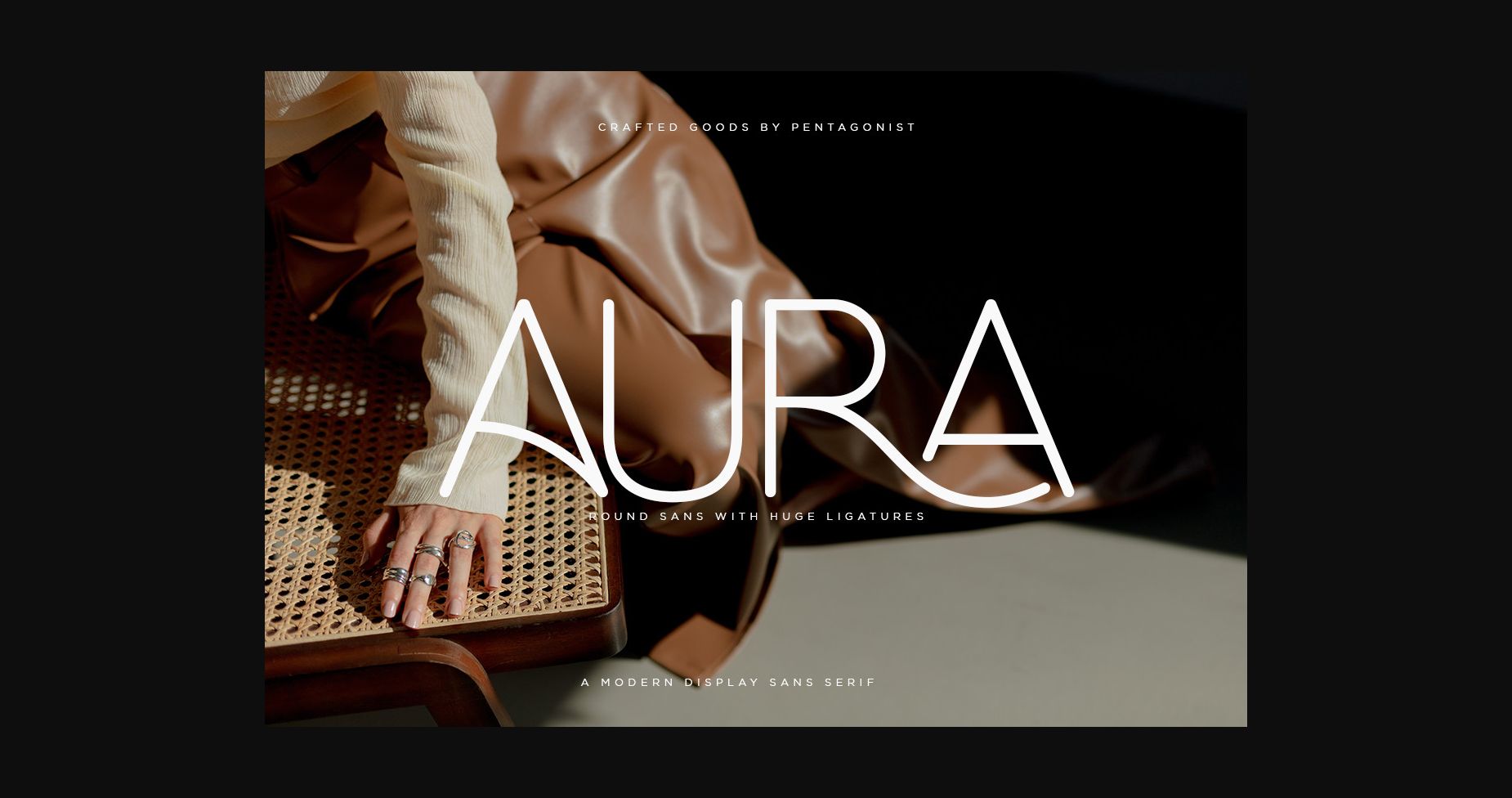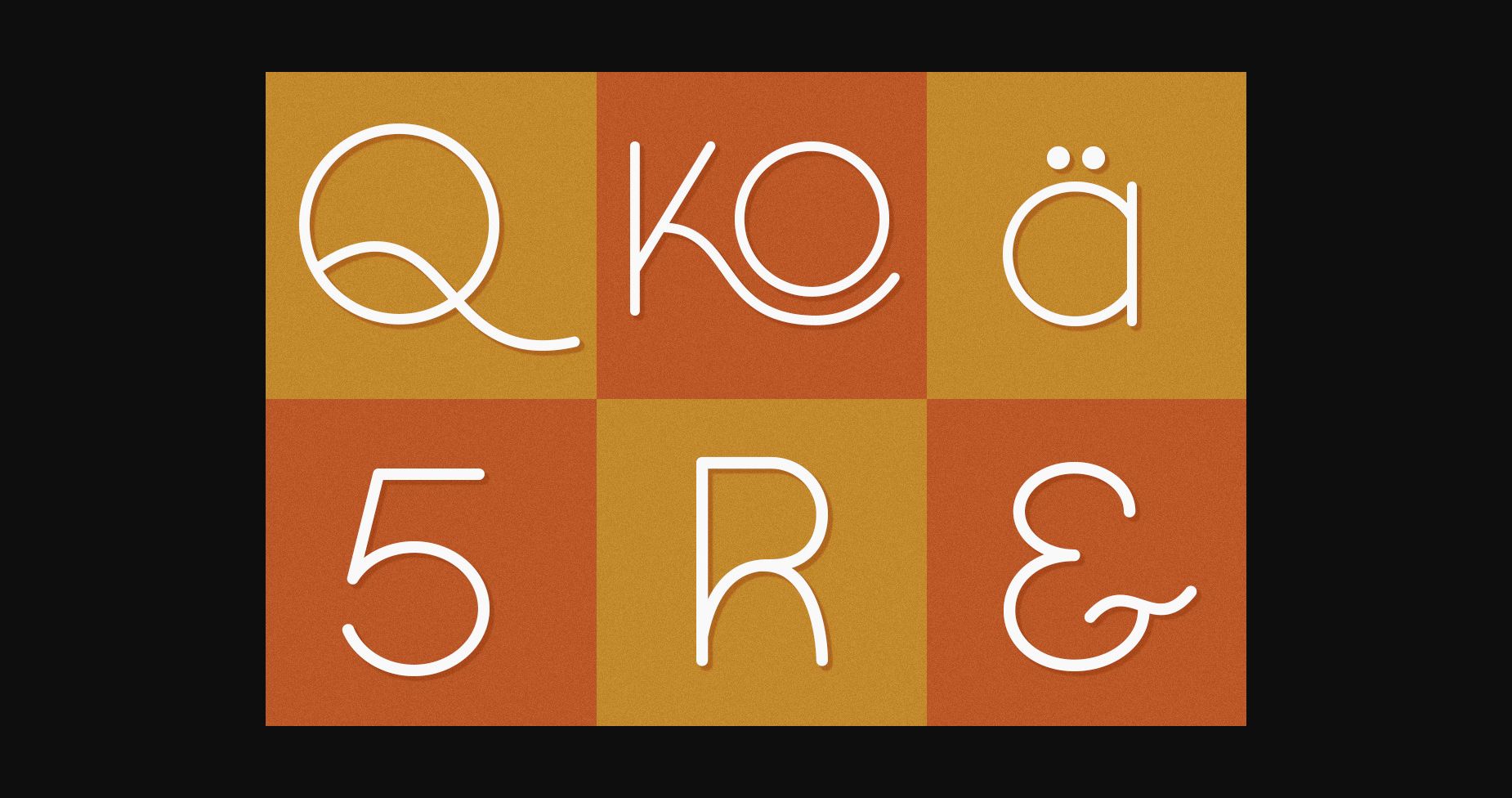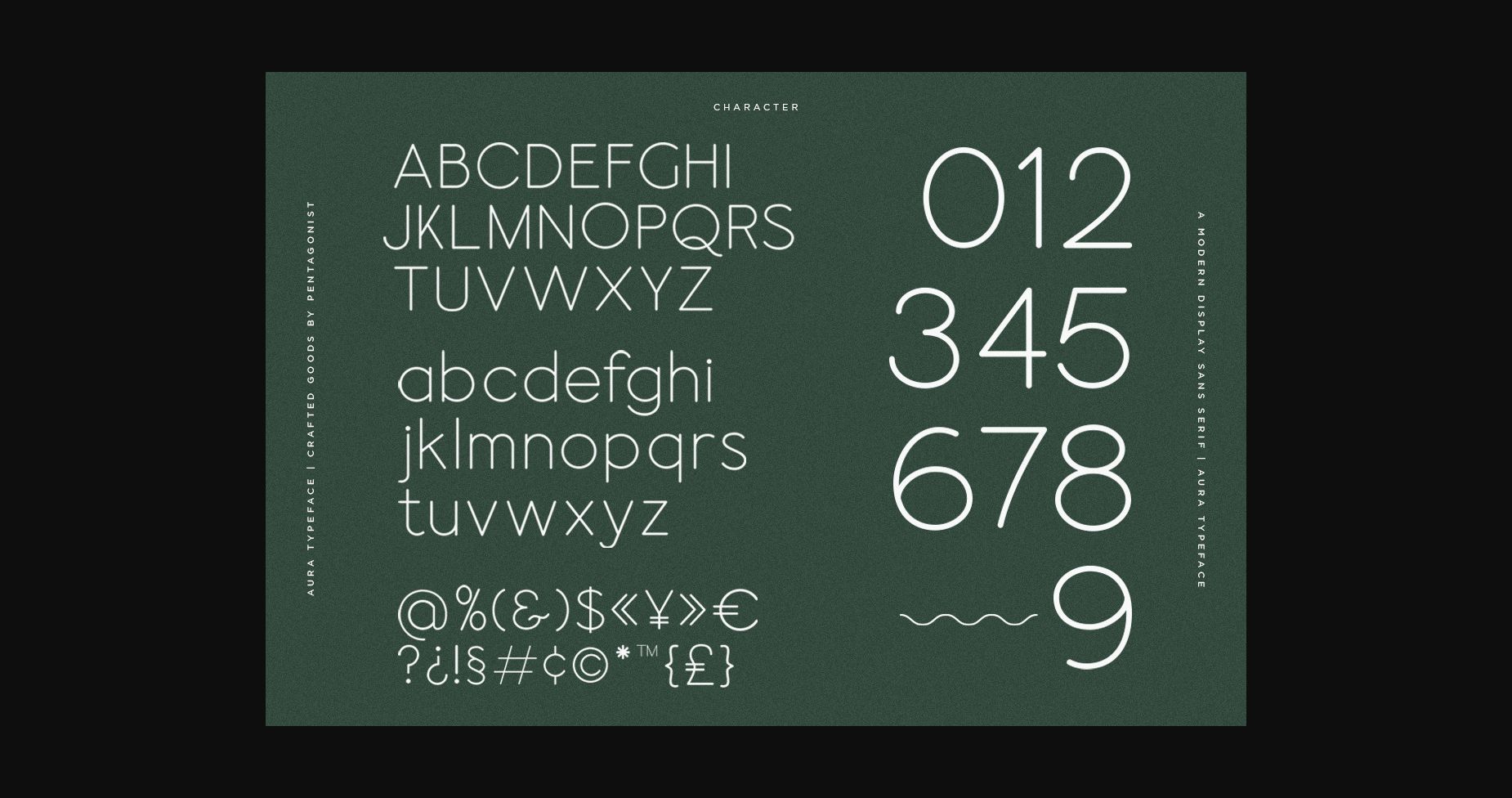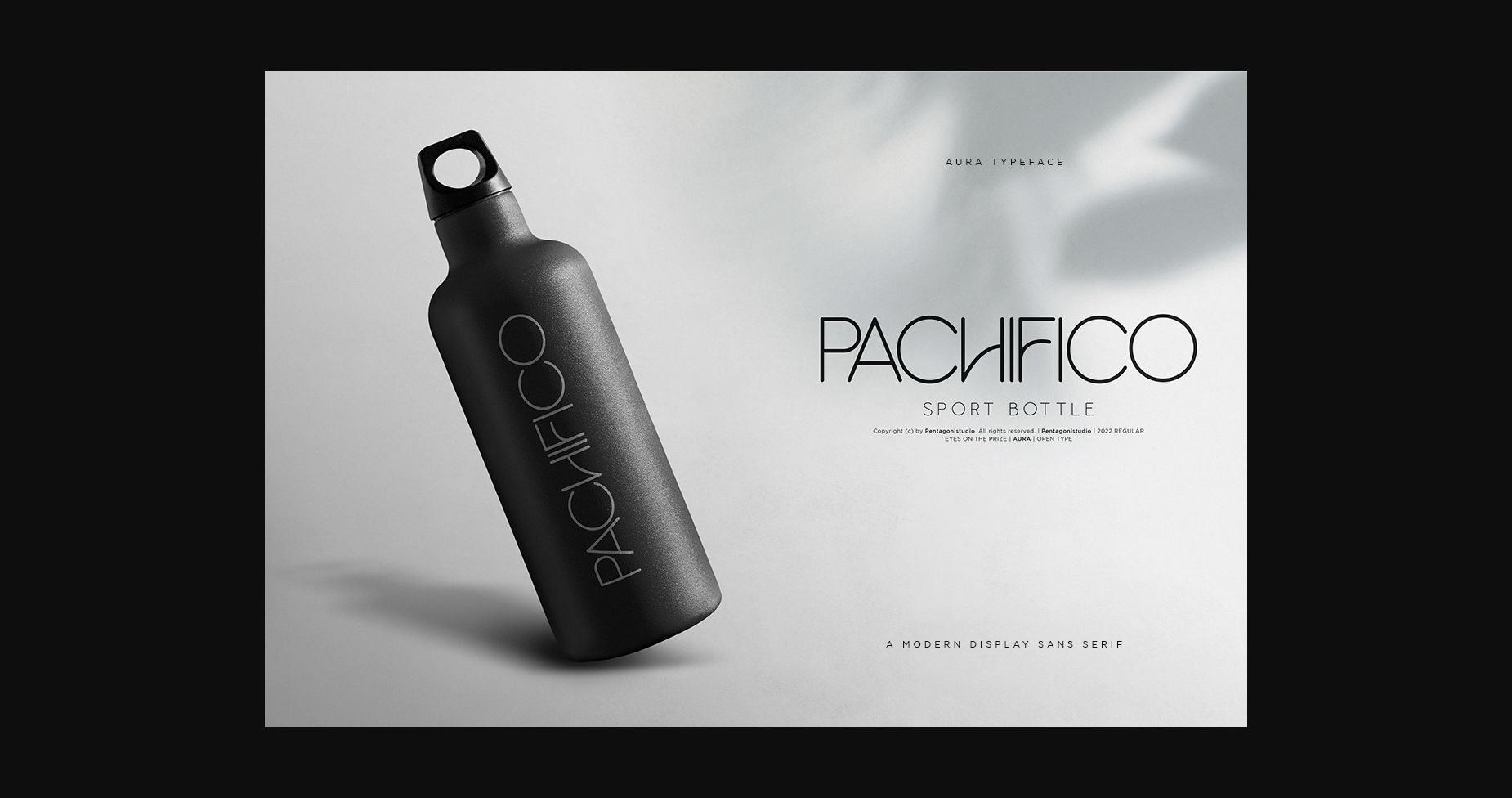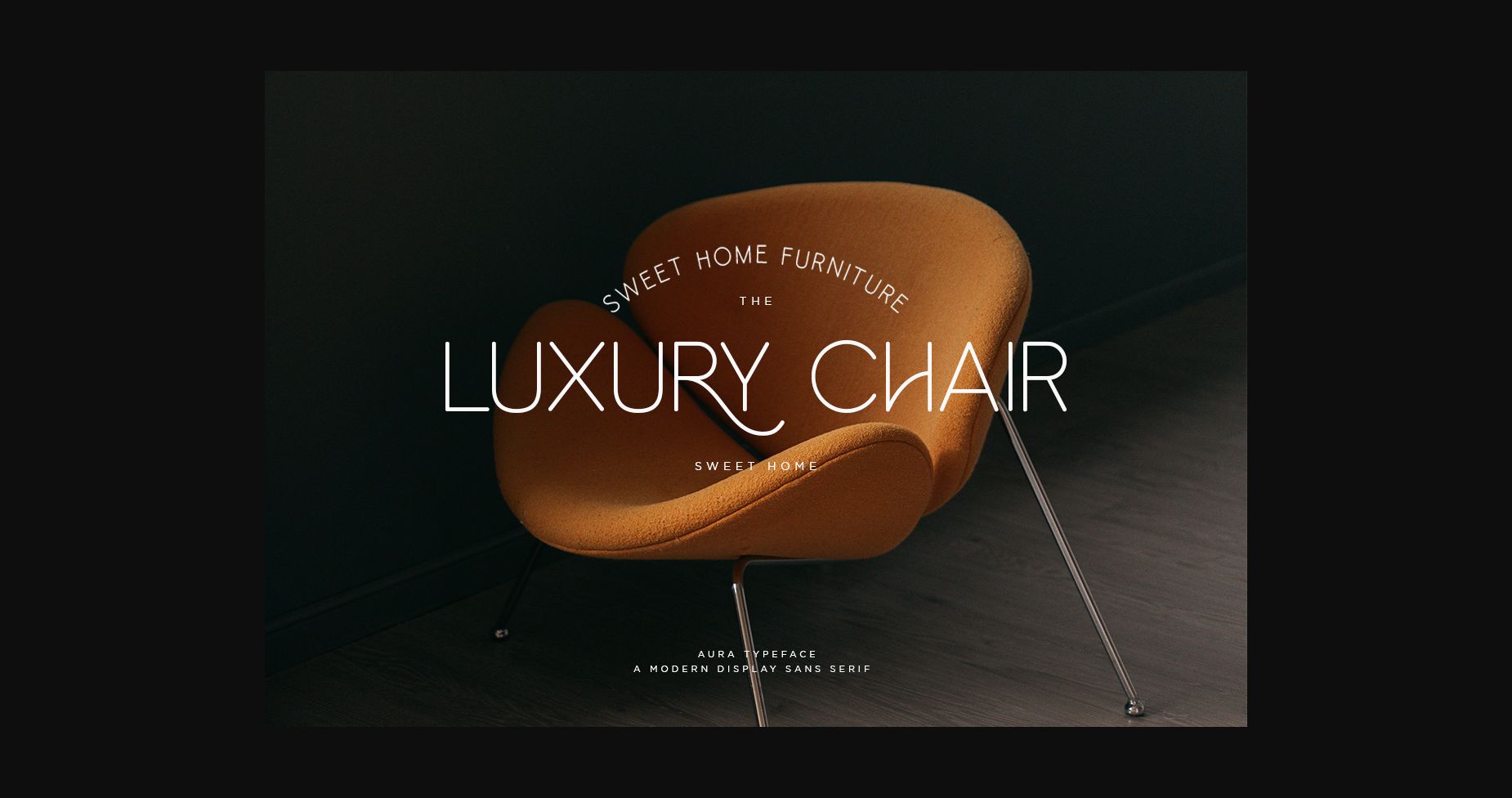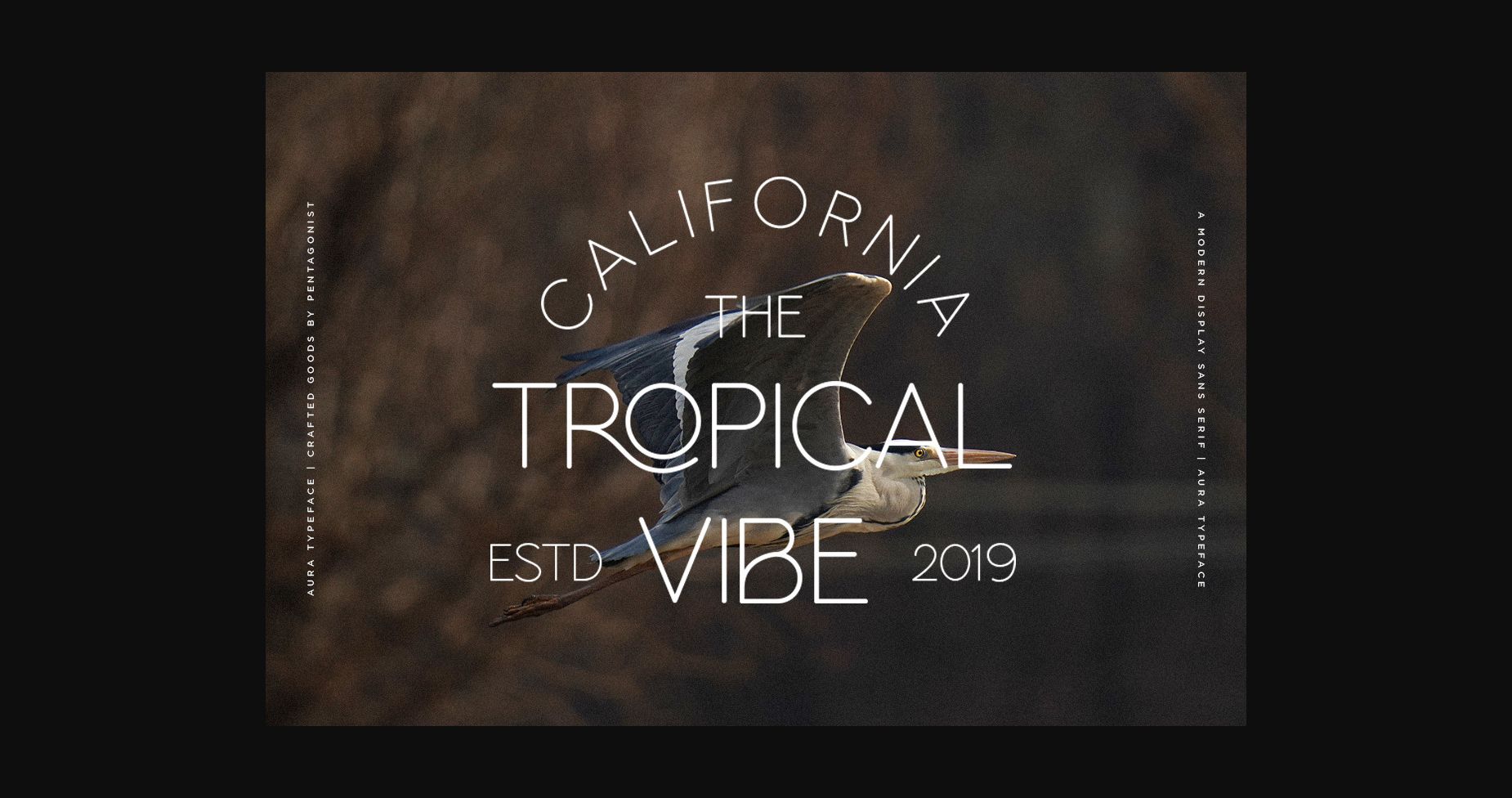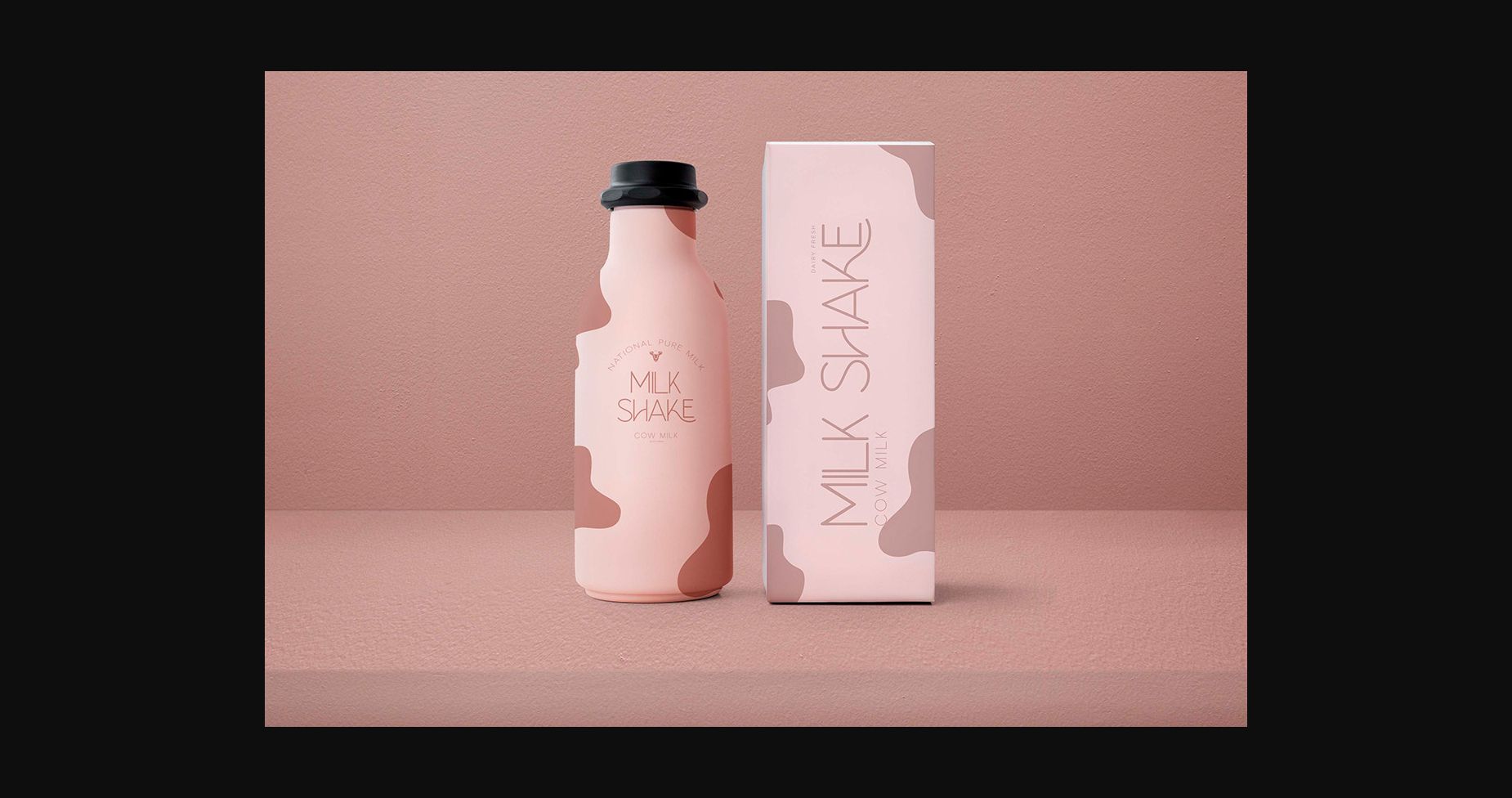
Aura Font
About Aura Font
Aura is a modern, round sans-serif font with sleek characters and huge ligatures. It is nice and easy to read and can make any text stand out! This font is PUA encoded, which means you can access all of the glyphs and swashes with ease!